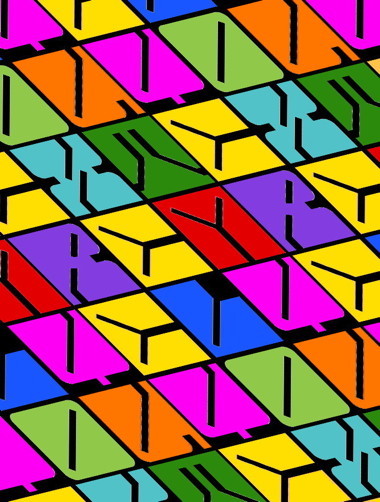
This was in the chamber before the ScriptCom. Hope you like it!
Delightful personality! It inspired me to start a new font, but we'll see how that goes.
Minimalistic treasure. Genius vision as always.
Beautiful! And clever solutions of each letters.
Your inventiveness and skills always bring such amazing results - like this. 10/10+++
very cool geometric style, lovin' it!
A collection of unique characters that work really well together!
A font like me, really fat! I like it!
@jphturtle: Thanks for comment. That's another of my zinderellas fonts.
Are you zypnotizing me? I think it worked. 10/10!
Congratulations! FontStruct Staff have deemed your FontStruction worthy of special mention. “zynopsis eYe/FS” is now a Top Pick.
@SymbioticDesign: Thanks for your support, compañero. I was only cleaning the face of the font one year later.